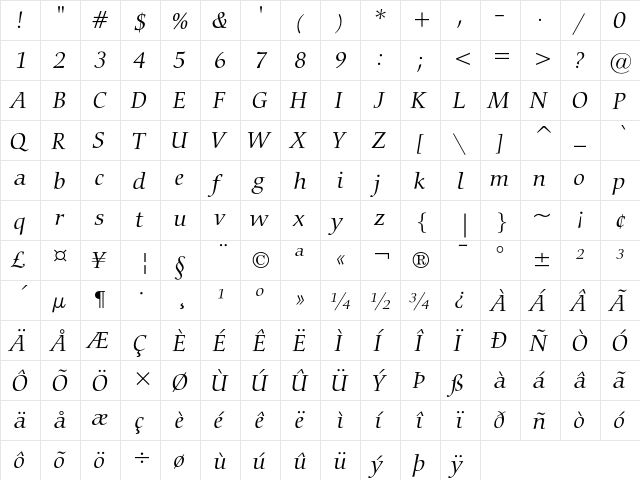
Bitstream Carmina Light Italic
Design Context for Bitstream Carmina Typeface
Bitstream Carmina offers clean, dependable letterforms without strong stylistic allegiance, making it a practical choice for designers who need flexibility. The slanted form adds forward momentum and visual energy. Its slender proportions lend an understated elegance to any composition.
Pro Tip: Use Bitstream Carmina for emphasis, pull quotes, and subheadings where its slanted energy can add rhythm to the layout.